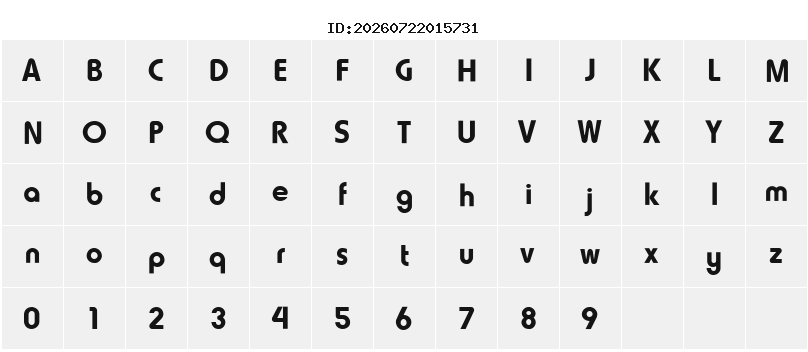
FZ BASIC 7 Preview
About FZ BASIC 7.ttf
FZ BASIC 7.ttf is a modern, elegant sans-serif font designed for ultimate readability and visual harmony. Perfect for branding, headlines, web design, and print materials.